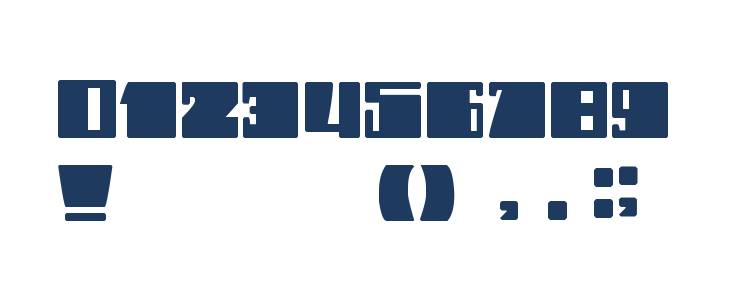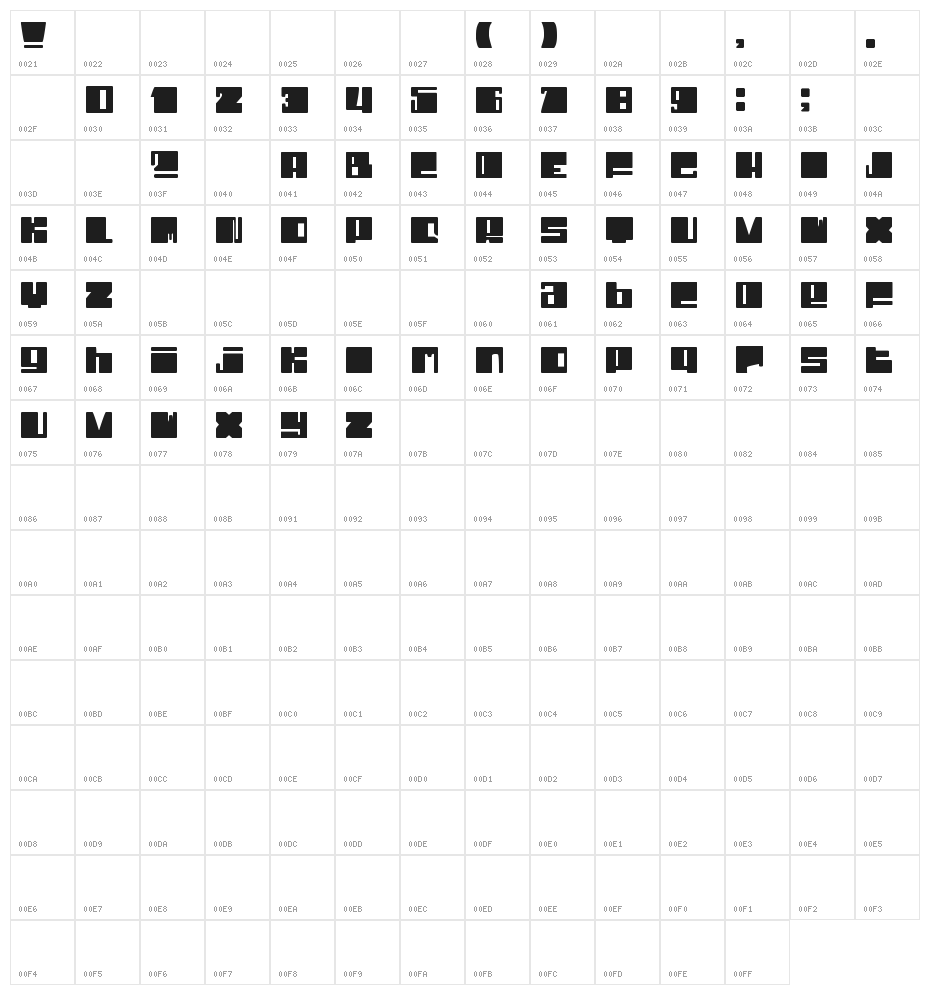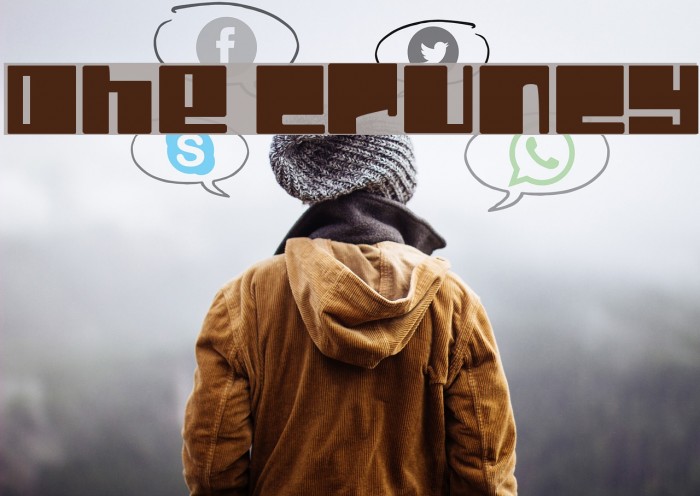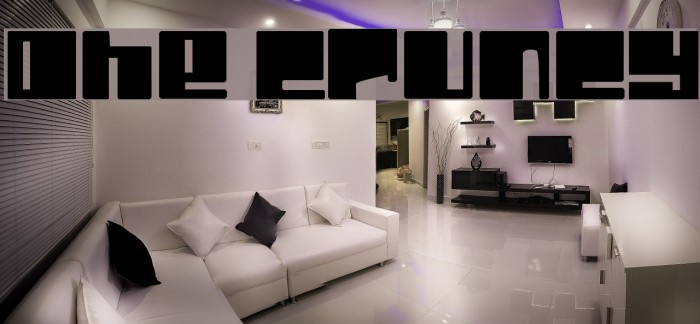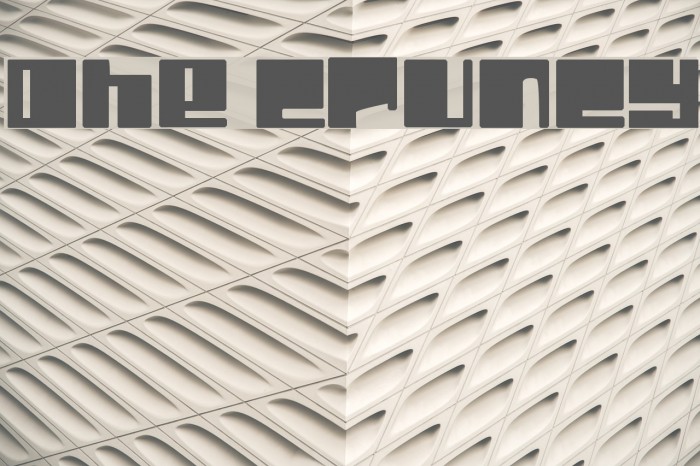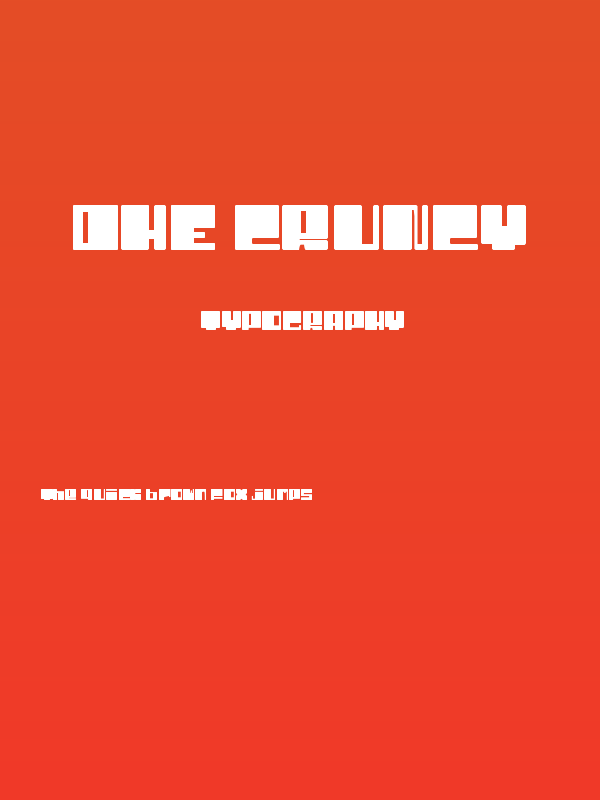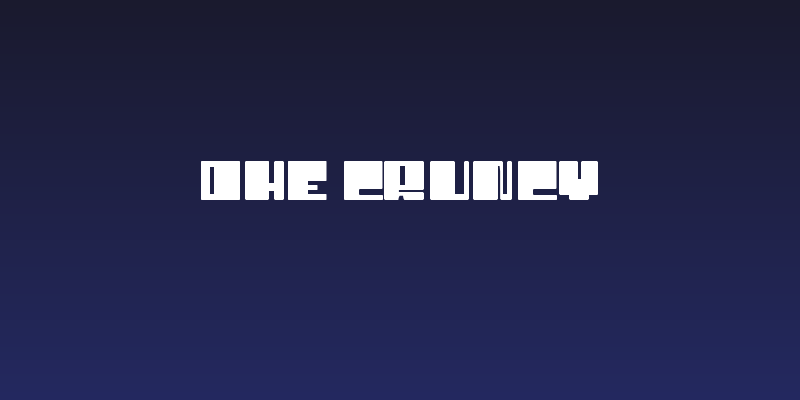
Dhe Cruncy Font
Dhe Cruncy Description
This font features a bold, geometric design with a blocky and robust appearance. Each character is crafted with a uniform thickness, creating a cohesive and striking visual impact. The uppercase and lowercase letters maintain a consistent style, with some characters incorporating unique cutouts and angles that add a modern flair. The numerals and special characters follow the same bold and structured design, ensuring a seamless integration across all text elements. This font's strong presence makes it ideal for attention-grabbing headlines and impactful graphic designs.
| Proposed Projects | Ideal for posters, logos, branding materials, and any design requiring a bold statement. |